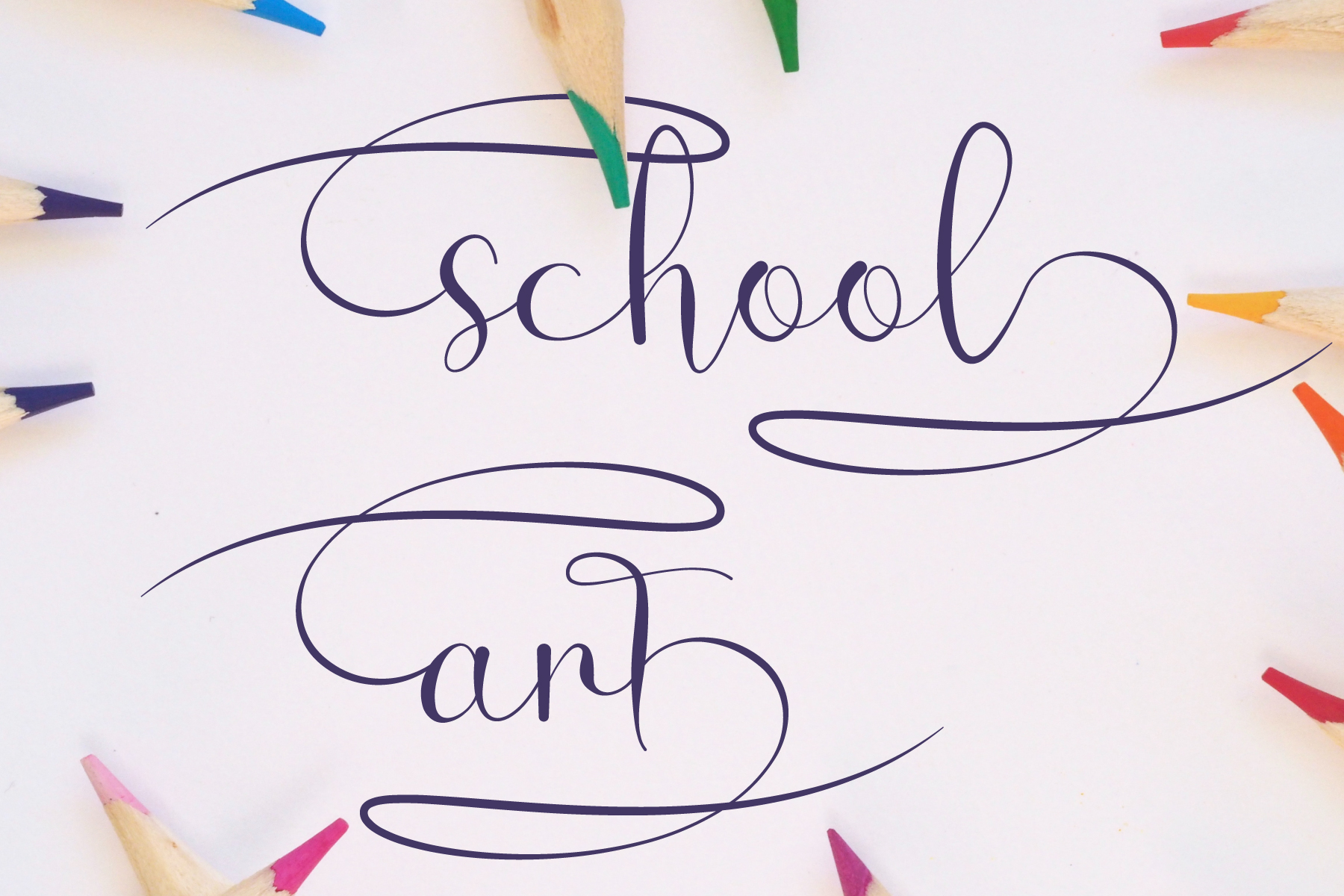
The She Script Font
This is a magical script font carefully created with a touch of elegance. This font is PUA encoded which means you can access all of the amazing glyphs and ligatures with ease!